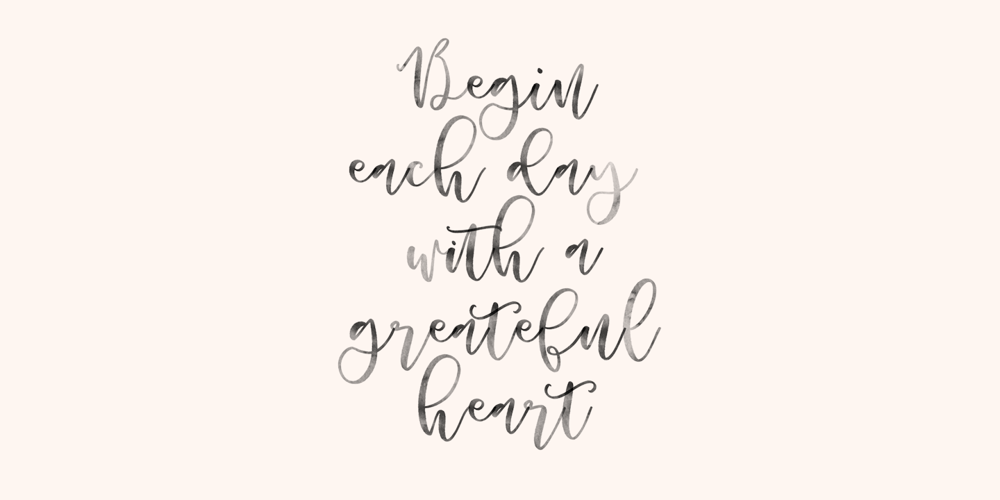
Roelle Font Family was designed by Dmitrii Chirkov and published by Supfonts. Roelle contains 1 styles and family package options. Roelle will look beautiful on holiday invitations, wedding invites and stationery, logos, and more. Test it out below and watch the posters to see how it could look for your next project! Includes: Opentype SVG with ligatures Uppercase and lowercase Numbers and punctuation Foreign language support Check out my blog: www.instagram.com/zloillev pinterest.com/dmitriychirkov7